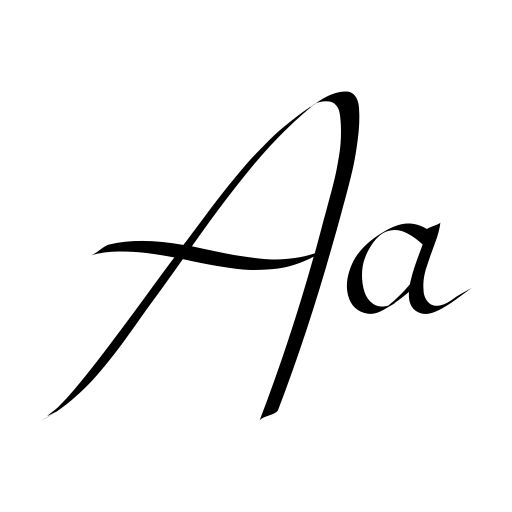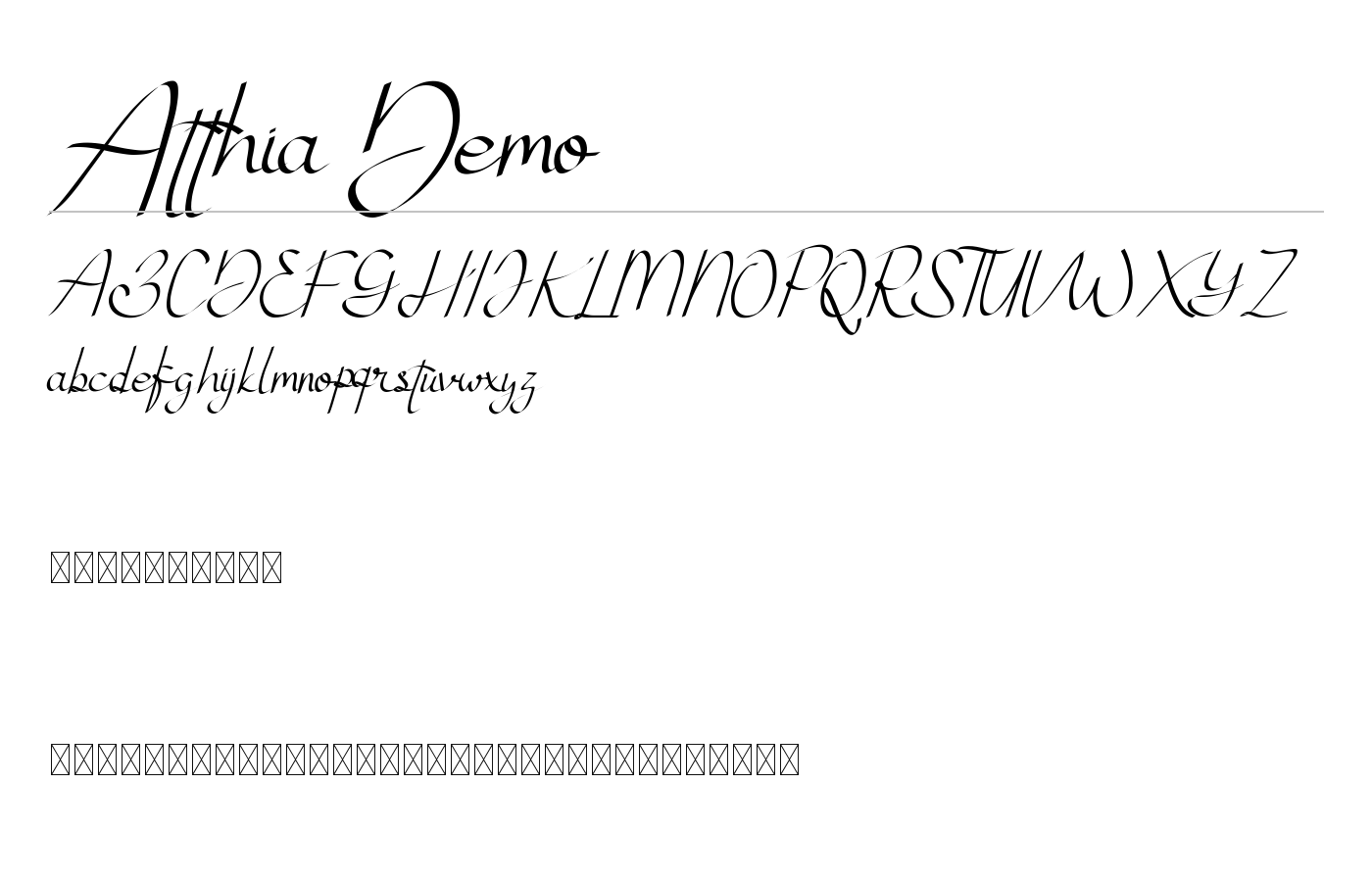
Atthia Demo is a delicate, elegant script font with slender, flowing strokes that create a refined and graceful appearance. Its thin, calligraphic letterforms and subtle contrast make it ideal for sophisticated branding, invitations, and decorative display uses where a touch of classic charm is desired. This font works beautifully in contexts that call for a stylish, personal feel without overwhelming the design.
Atthia Demo Font
About Atthia Demo Font
| Font family | Atthia Demo Font |
| Designer | Renata Insan C & Muhammad Deyan S |